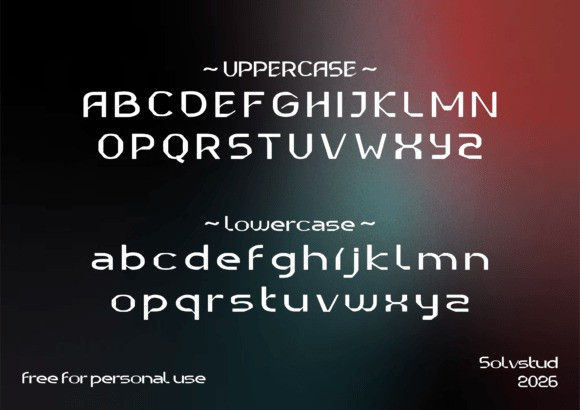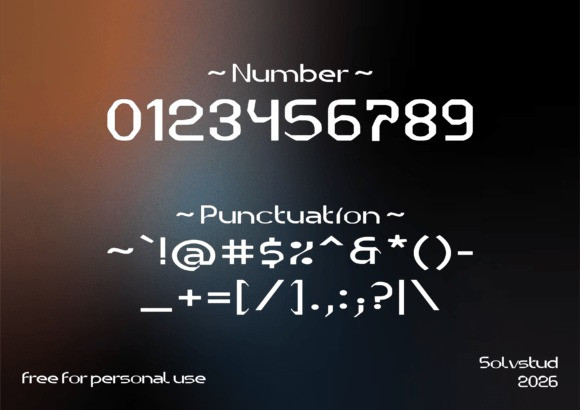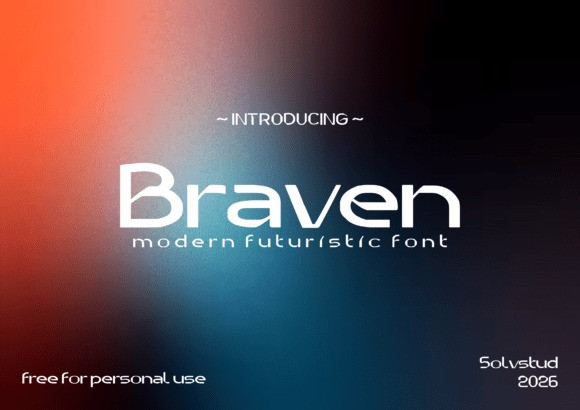
Braven Font
Braven Font a modern futuristic font. This typeface features wide, expansive letterforms with clean geometric lines and distinctive, precision-cut apertures that radiate high-tech sophistication. Its unique character is defined by a balanced contrast between sharp architectural corners and smooth, aerodynamic curves, making it an extraordinary choice for aerospace branding, futuristic gaming interfaces, sci-fi cinematic titles, and cutting-edge tech logos. Braven delivers a sense of unyielding professional authority and legendary forward-thinking style to your visual identity, ensuring your headlines command a signature presence in the digital age.